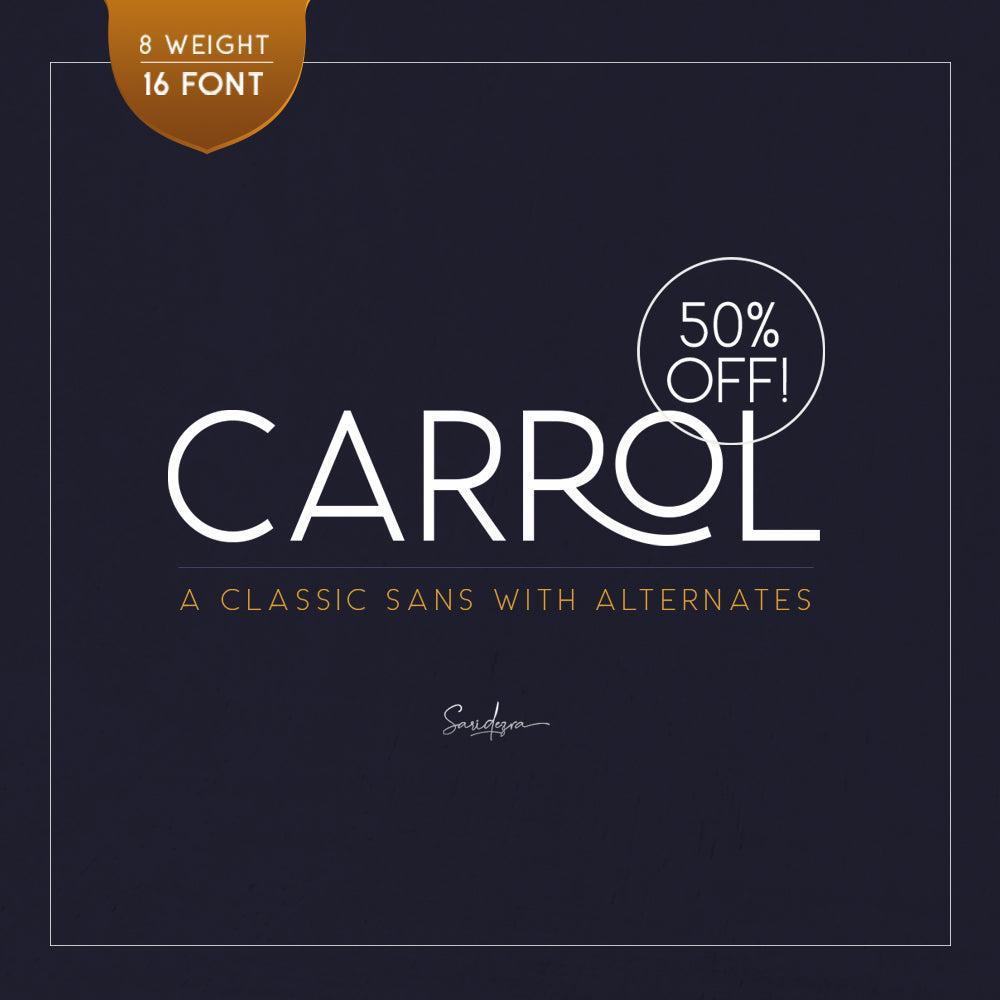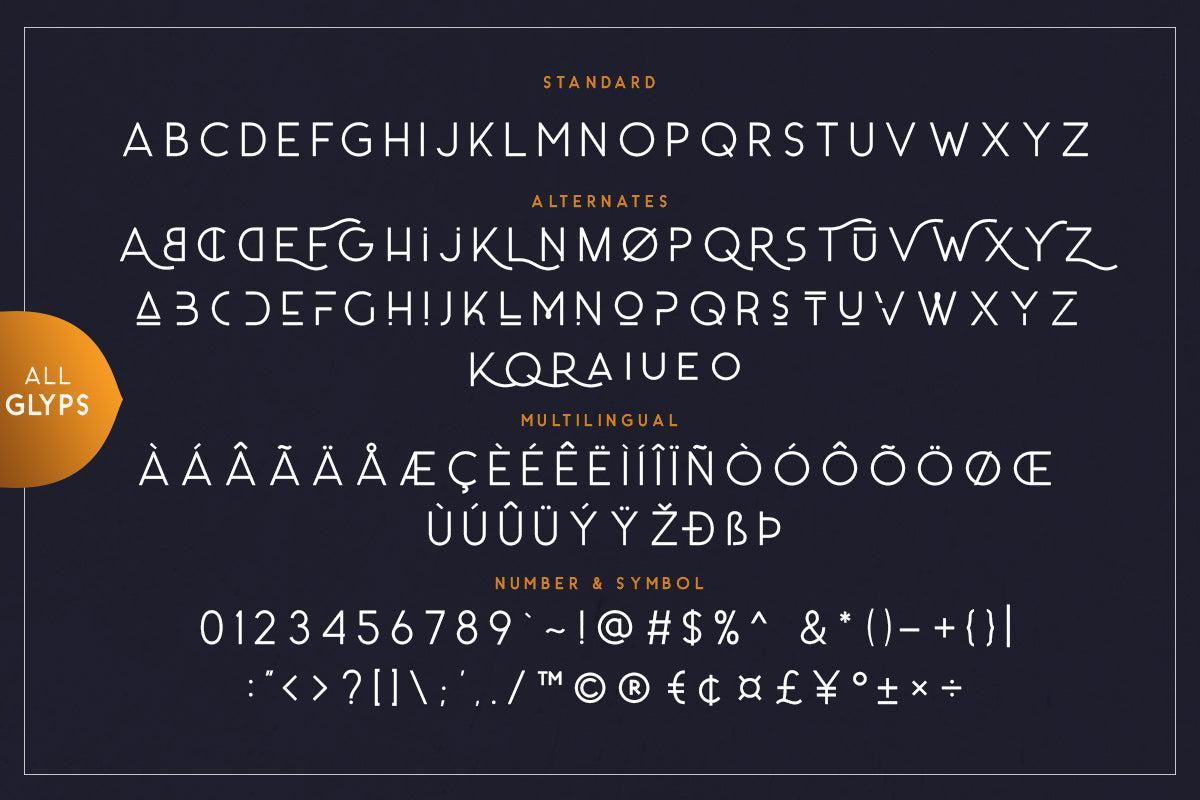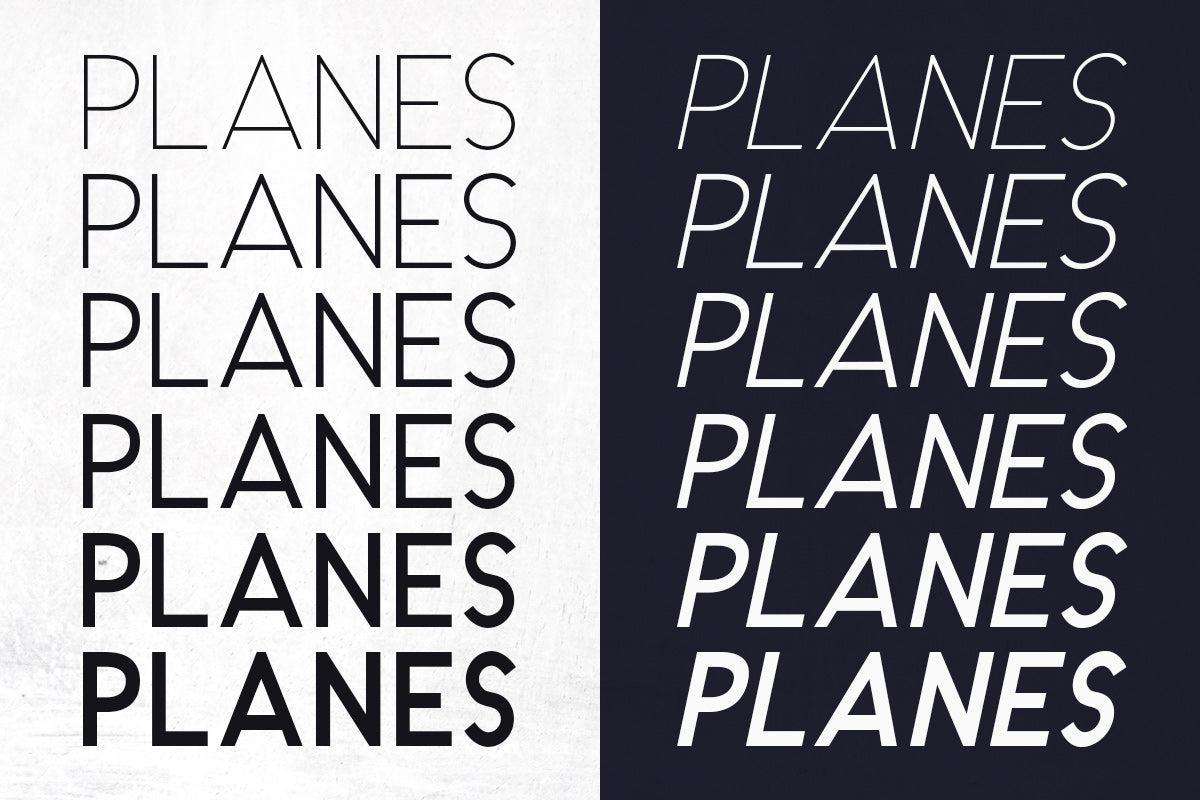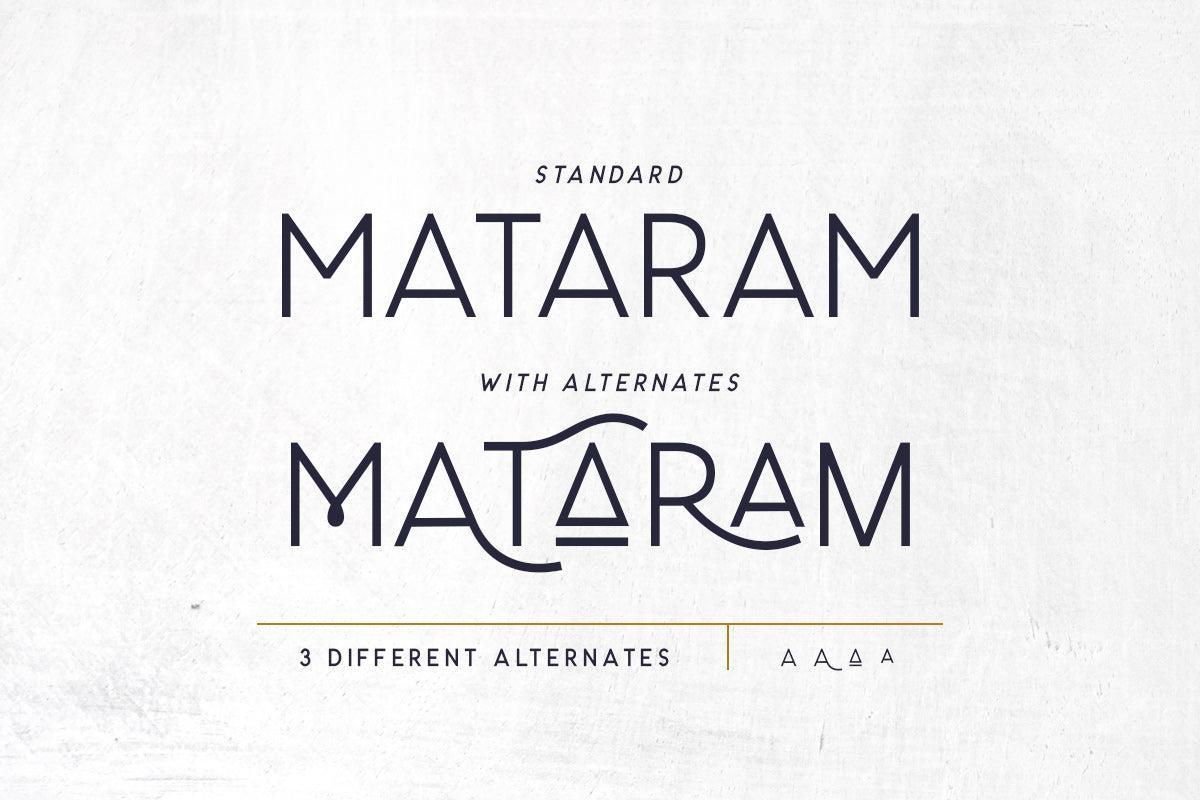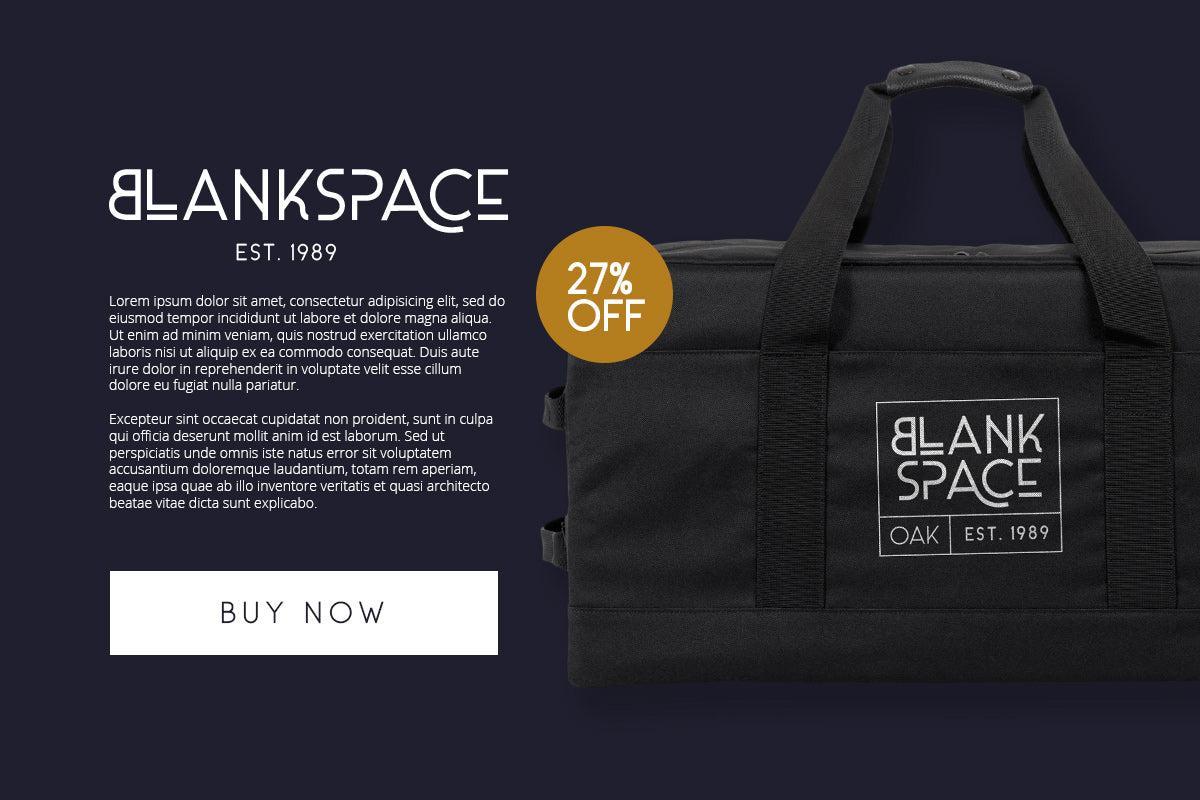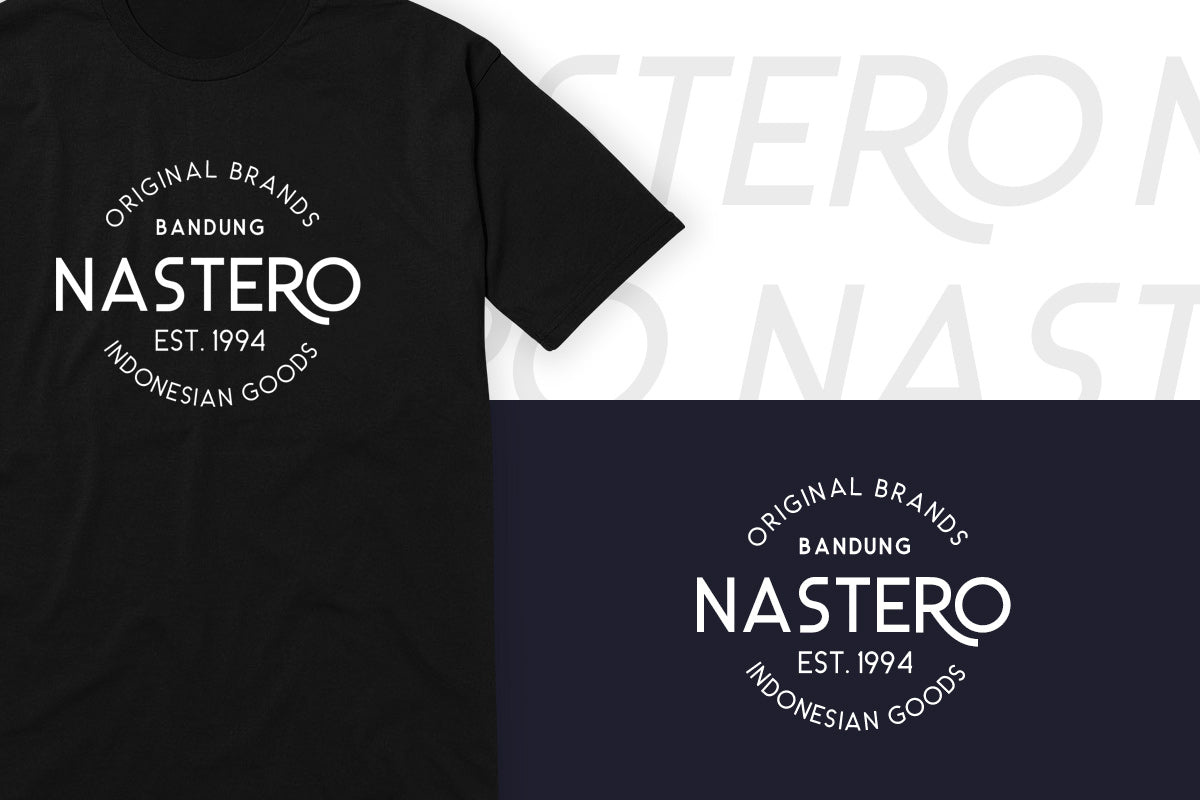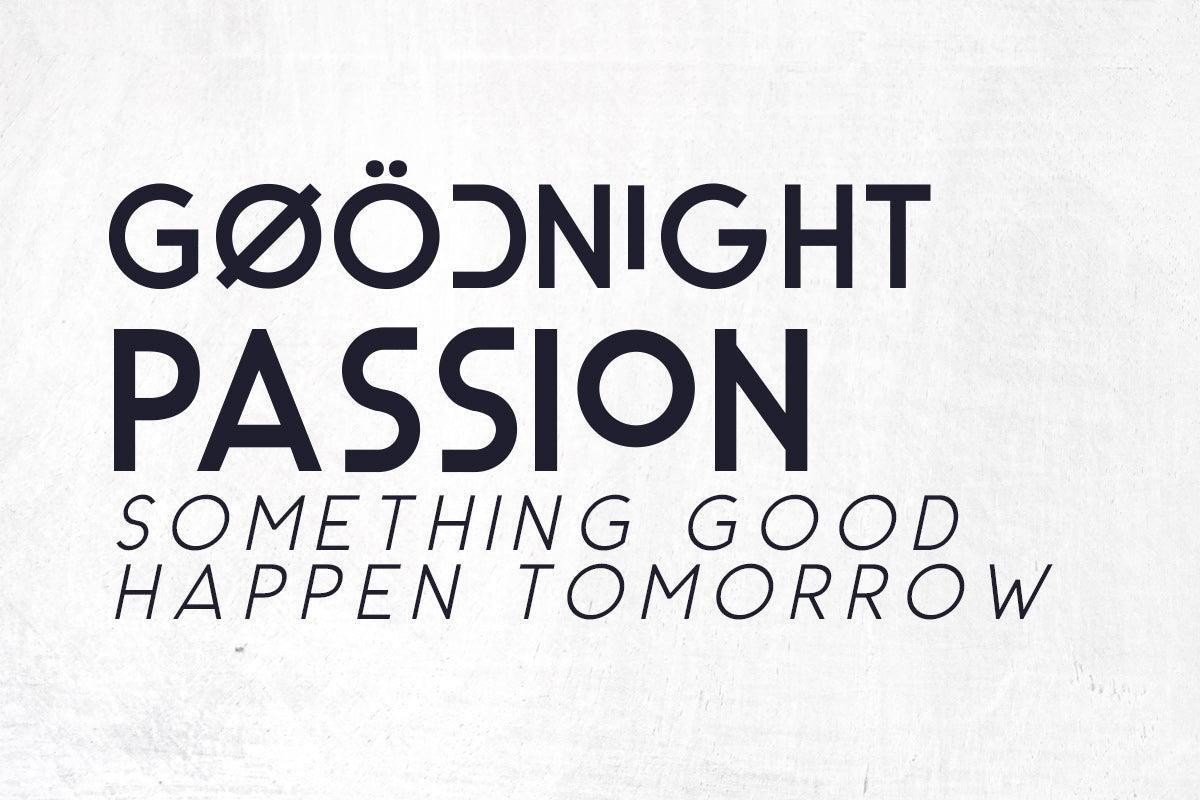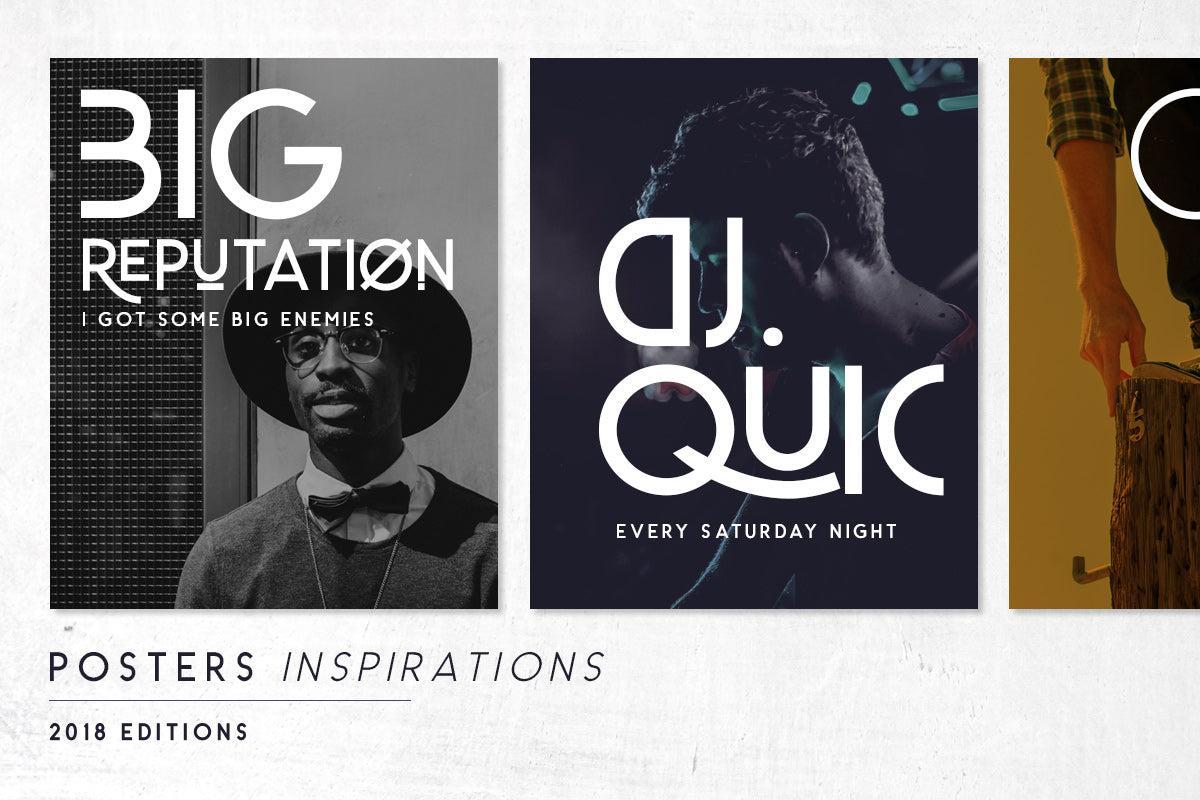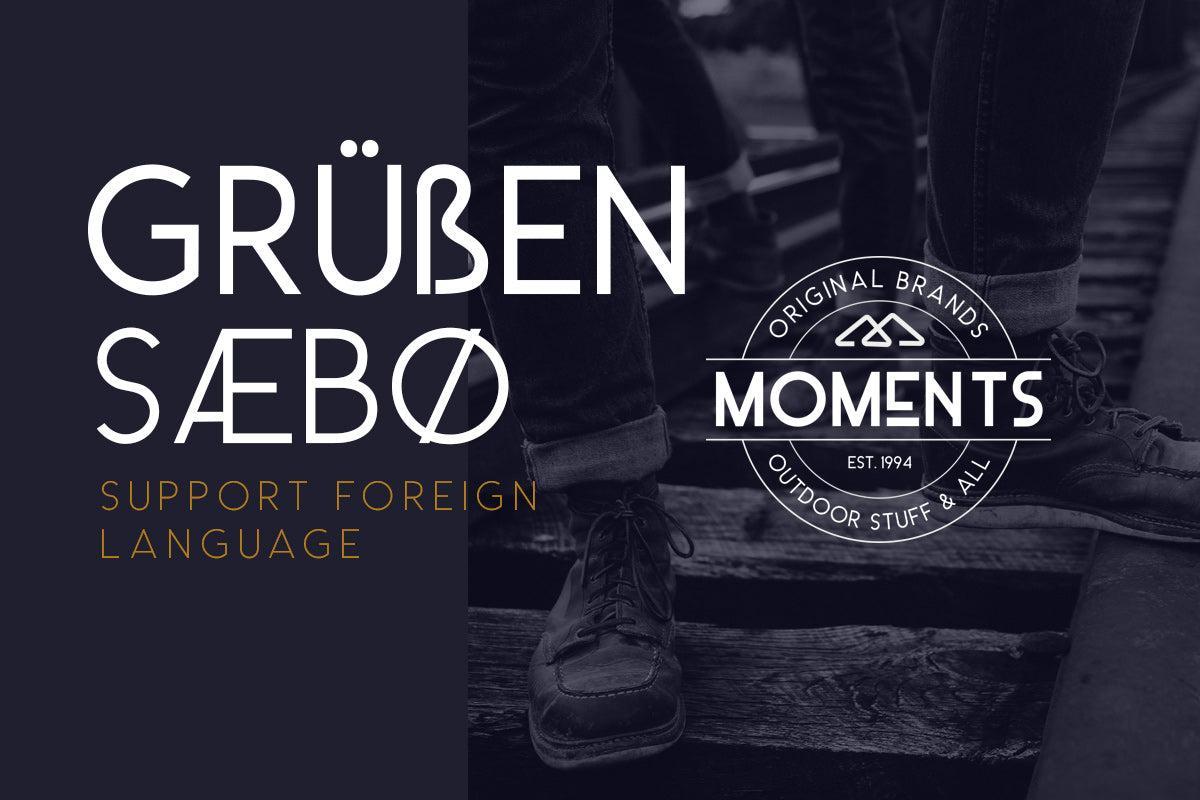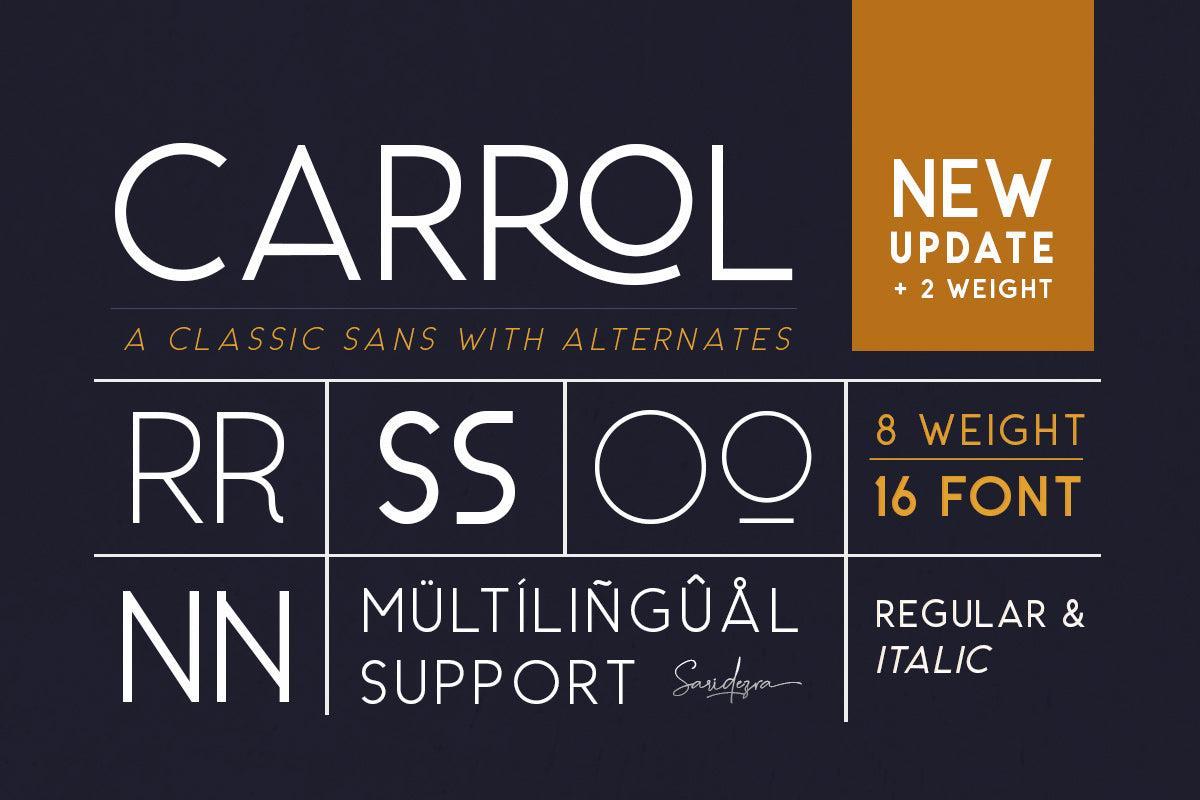
Carrol is a classic and modern sans with alternates in each alphabets! Every alphabet have alternates up to 3 kinds! This font fits in any project. You can use it for a tittle, logo, quotes, or become a pairing in any script font. This font also support multi language!
Carrol Sans is a modern and classic sans-serif font family that includes 16 styles, featuring up to three alternate versions for each letter. This font supports multiple languages and is compatible with OpenType, making it versatile for various design projects.